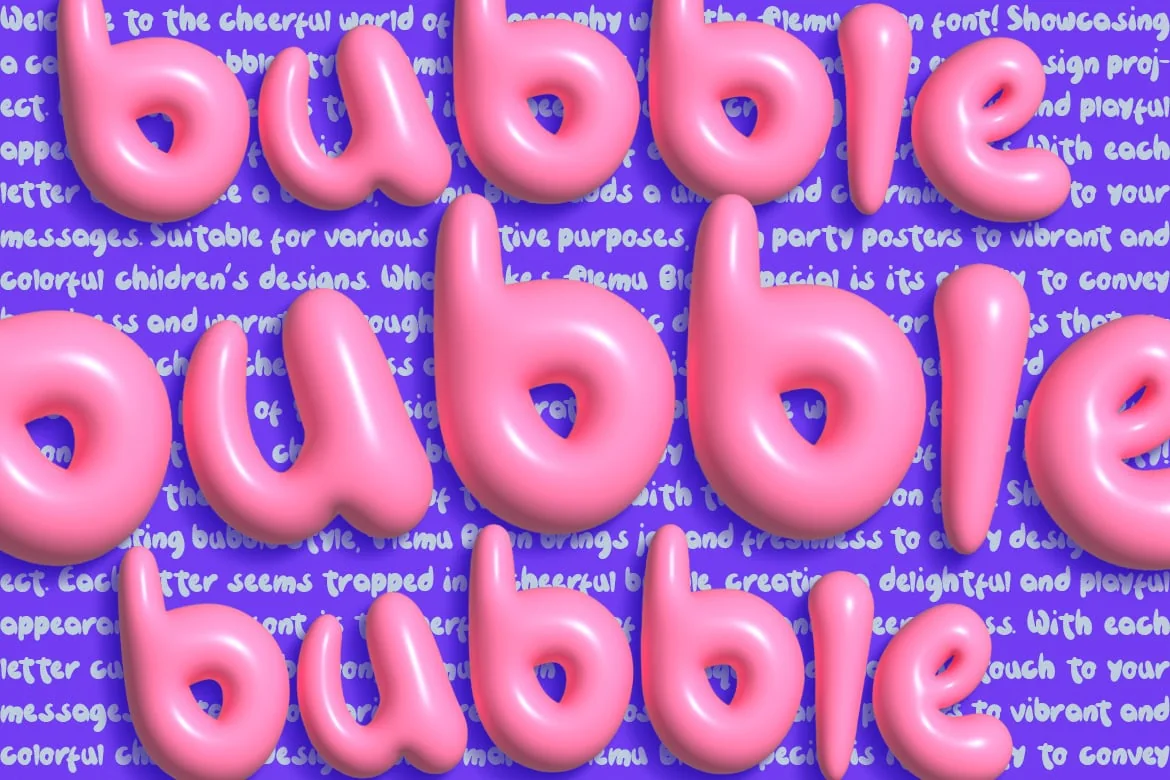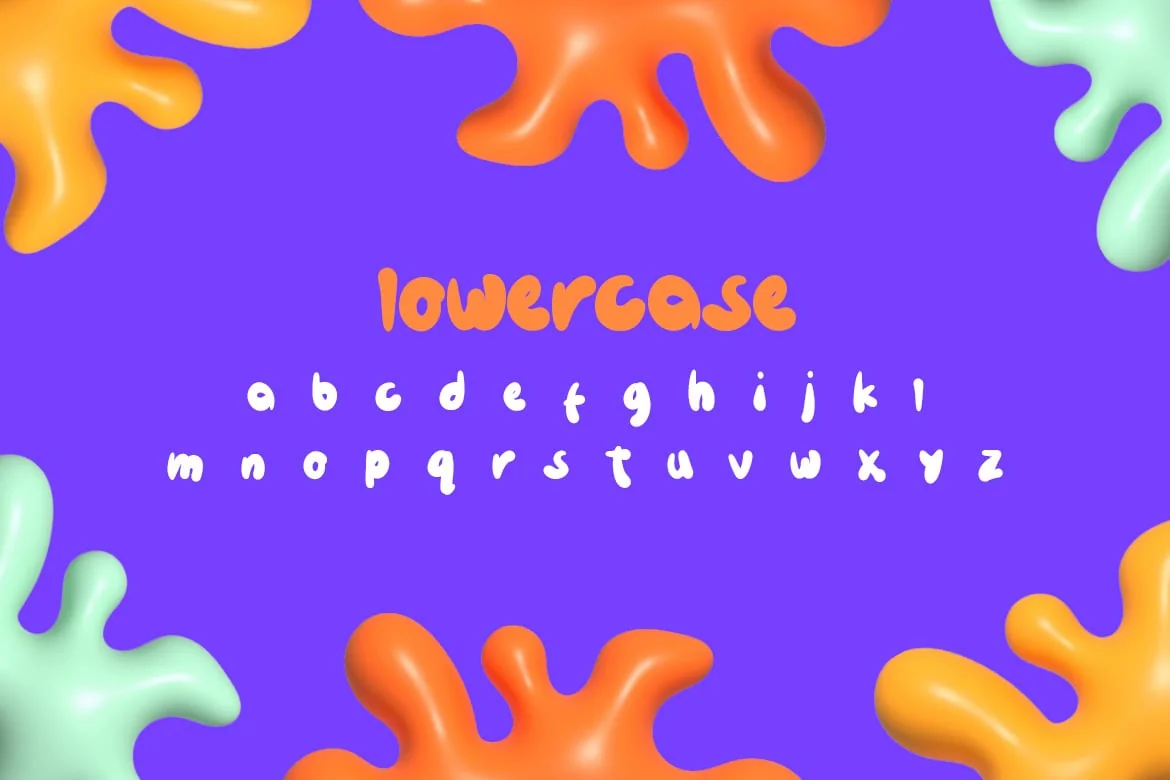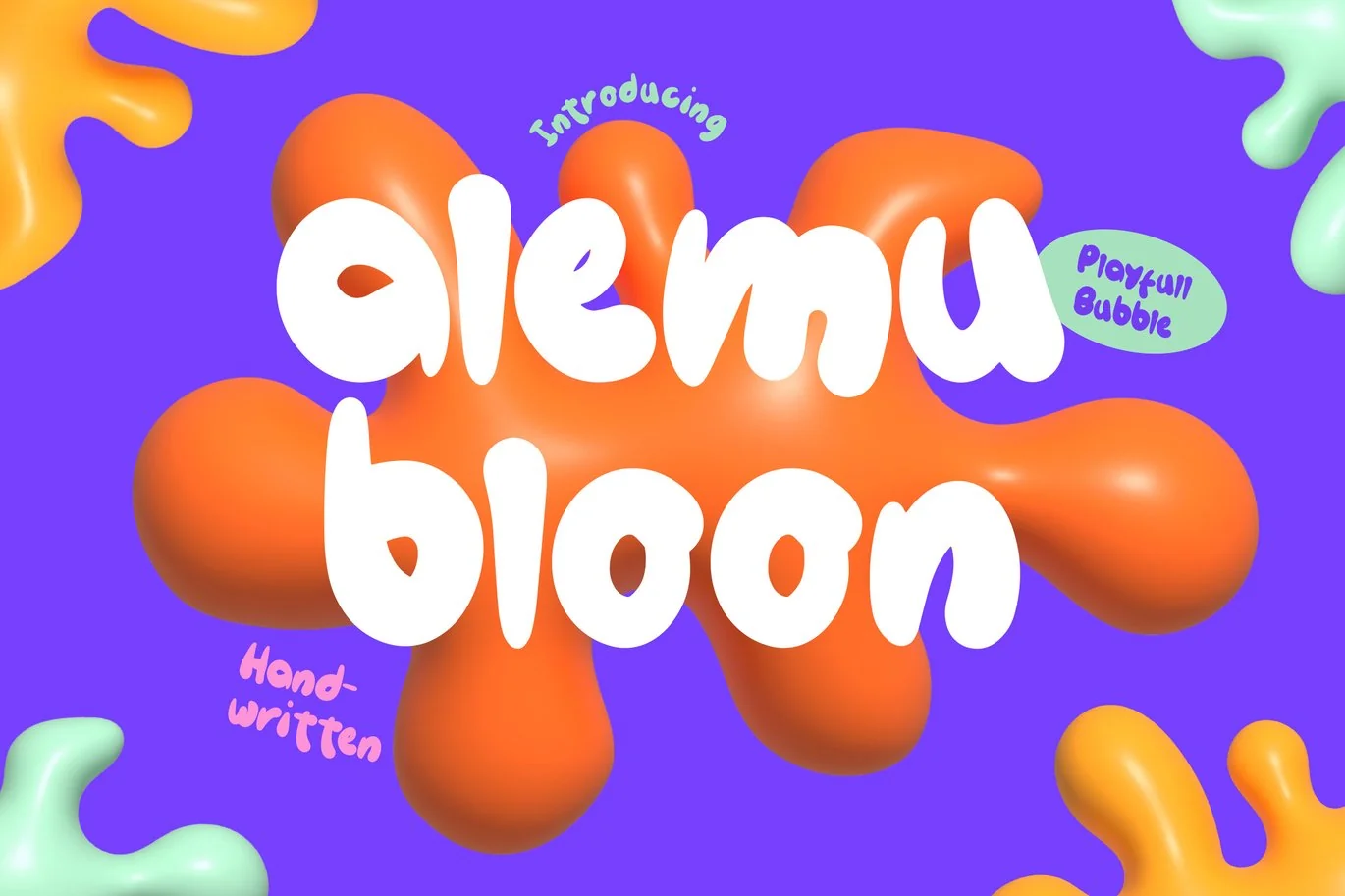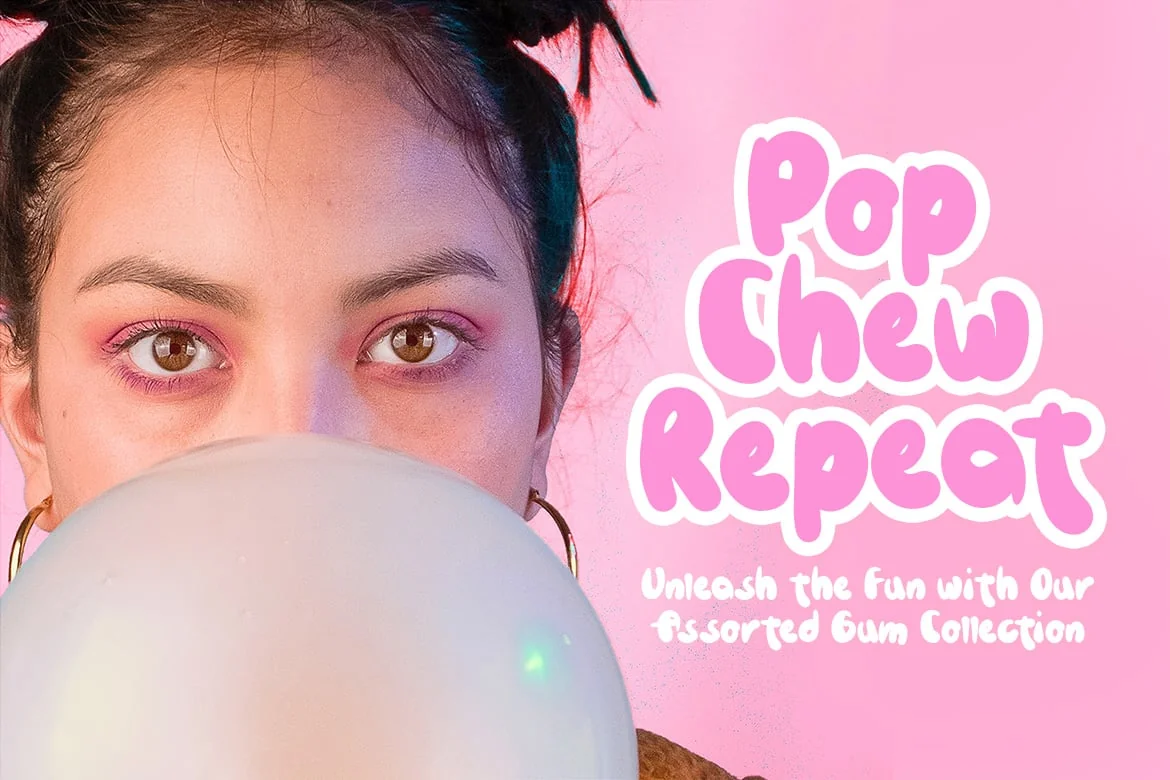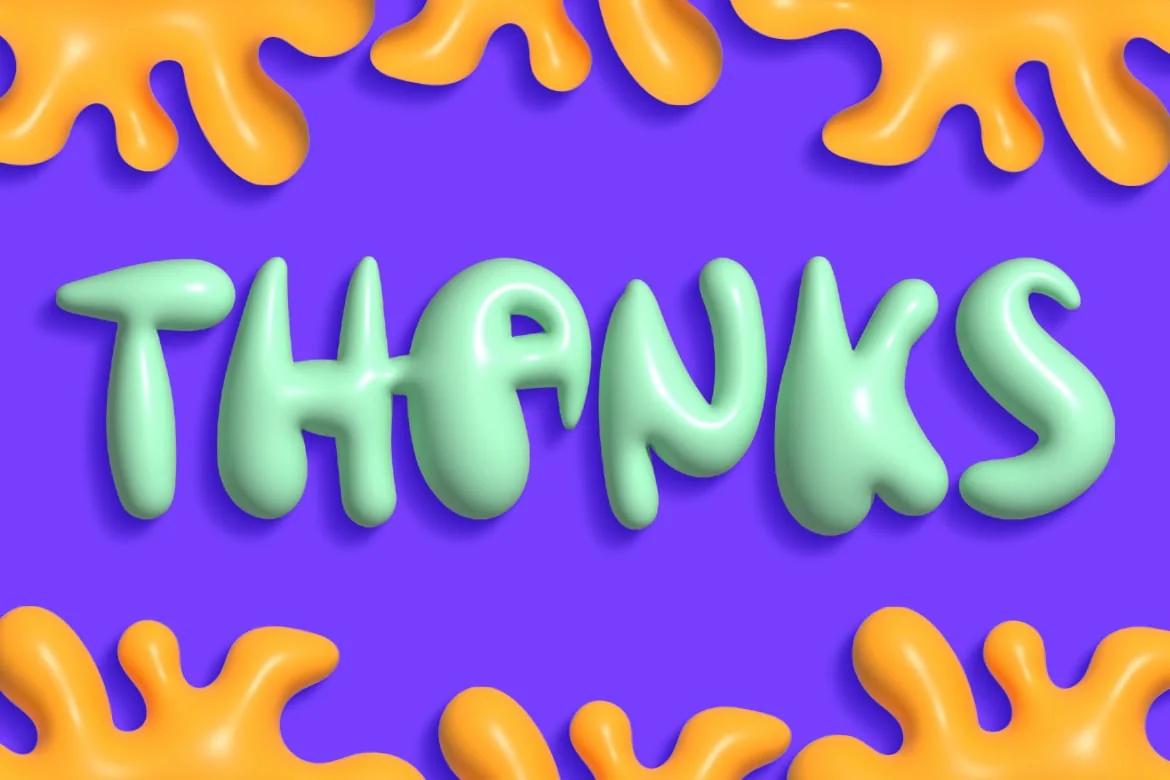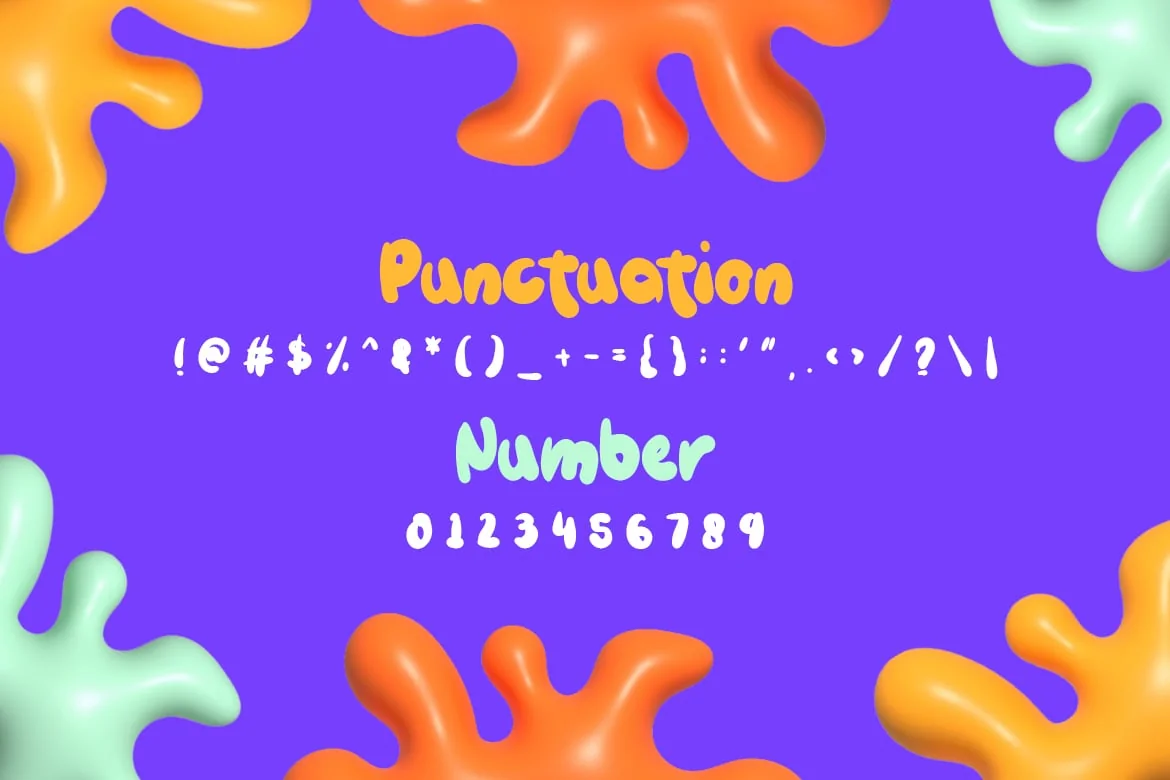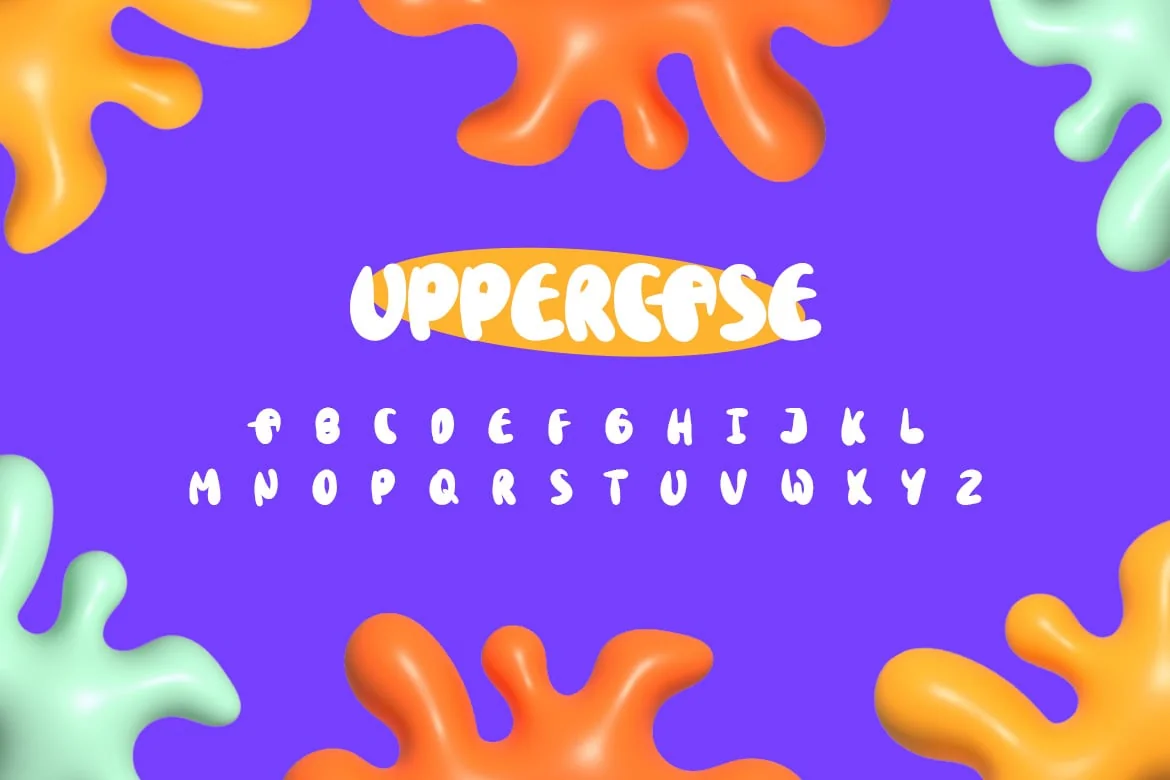
Alemu Bloon – Playful Handwritten Font
Alemu Bloon Playful Display Font is suitable for greeting cards, invitations, posters, baby clothing, books cover, quotes, logos, presentations, headline, etc. Alemu Bloon will turn any creative idea into a true piece of art and is ready to make your design looks great and fun!